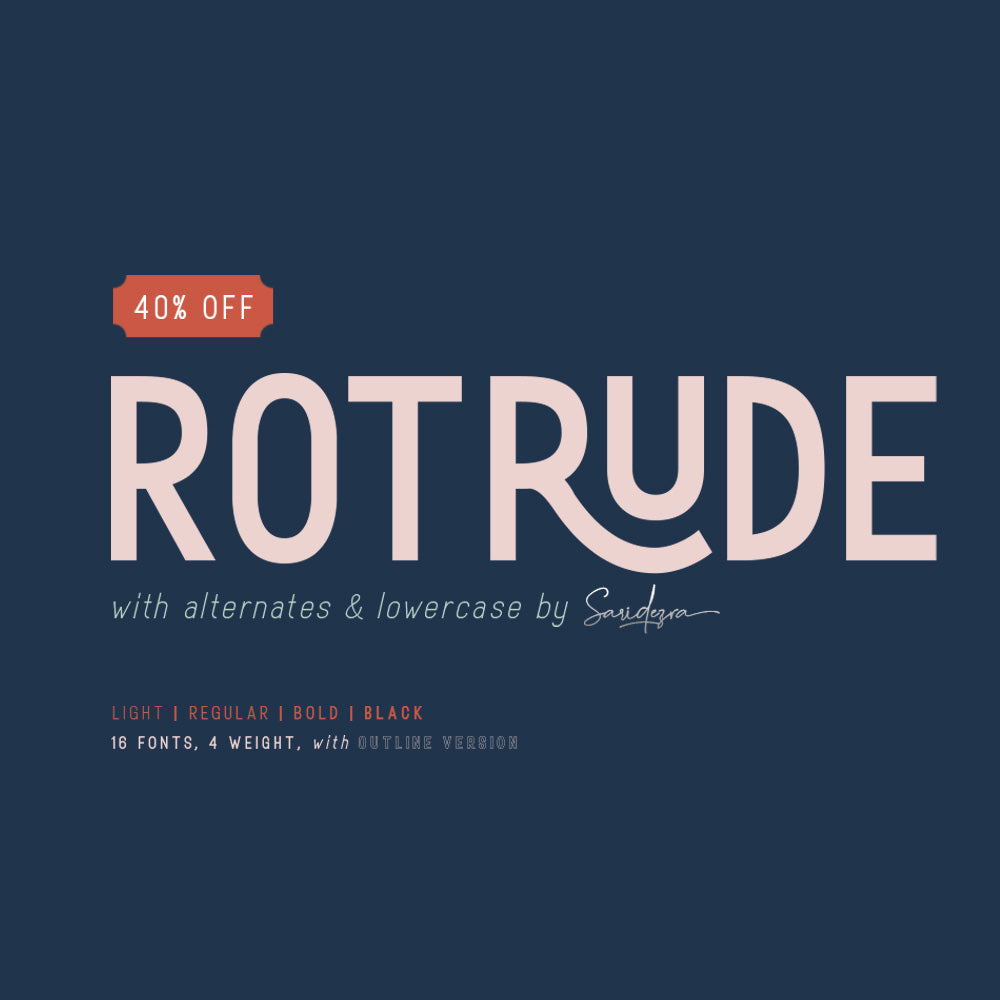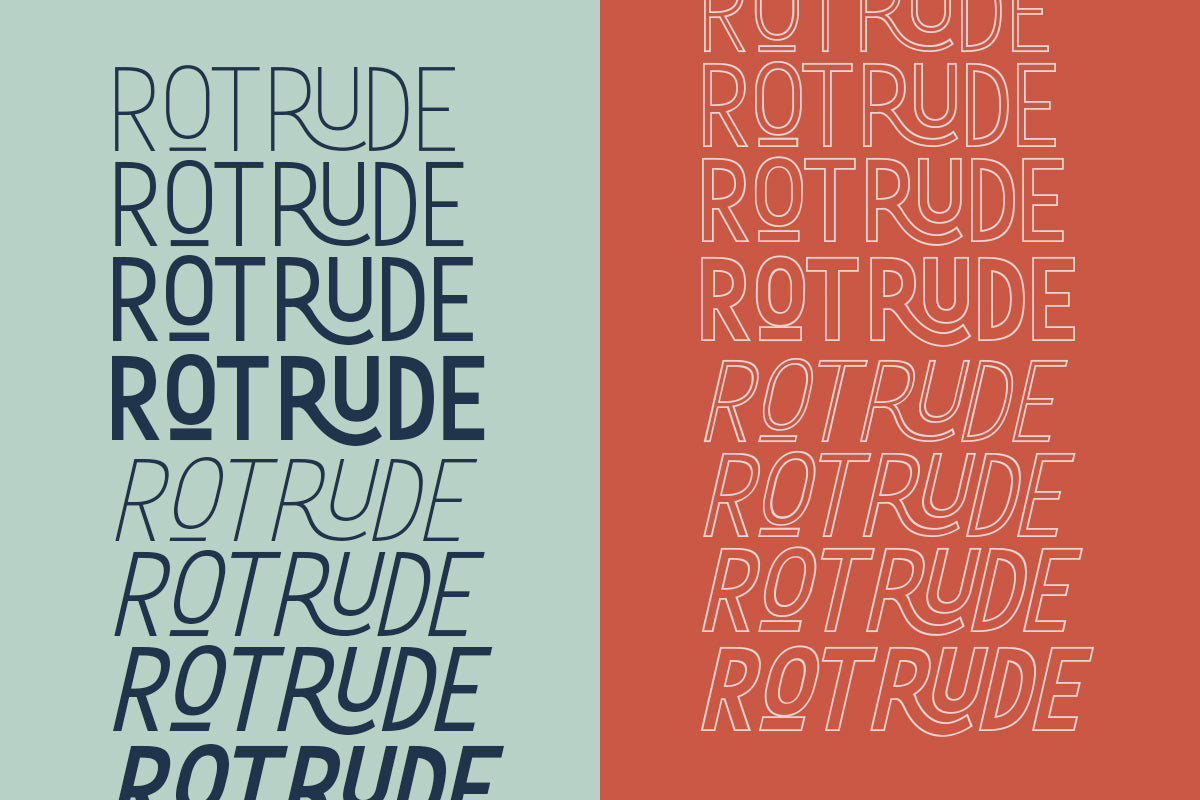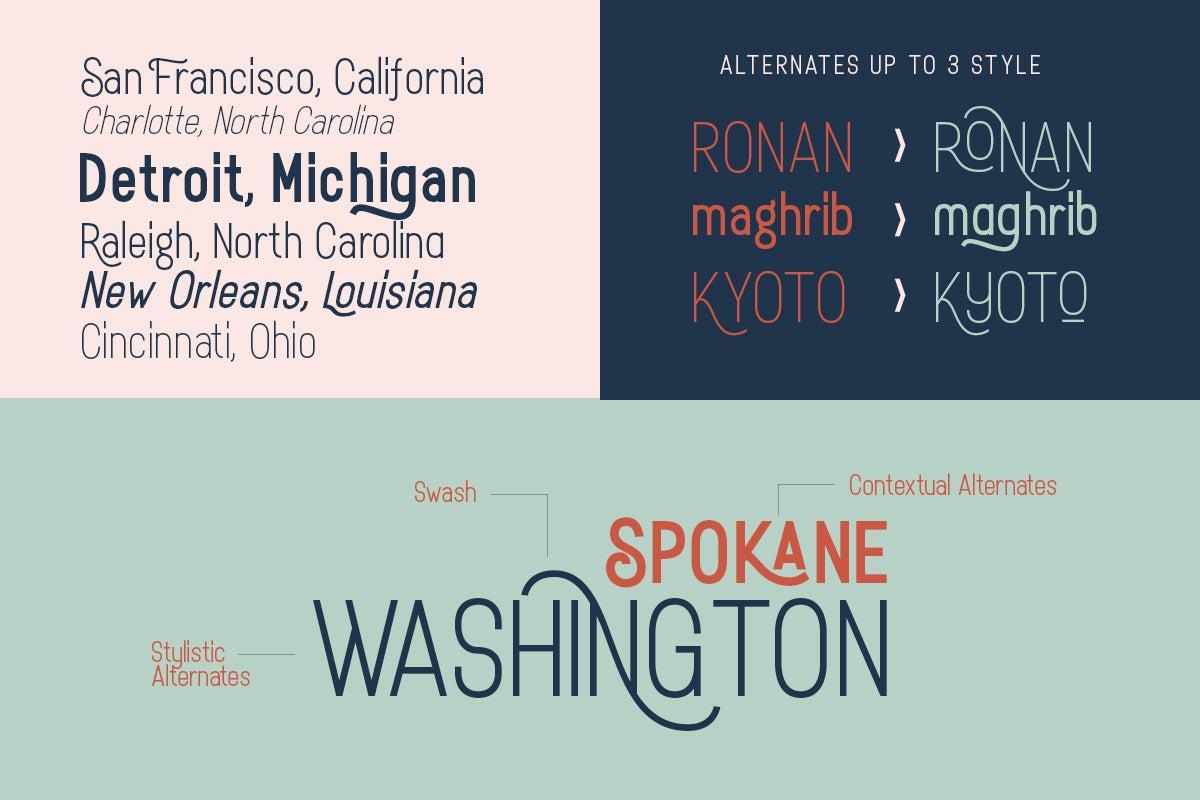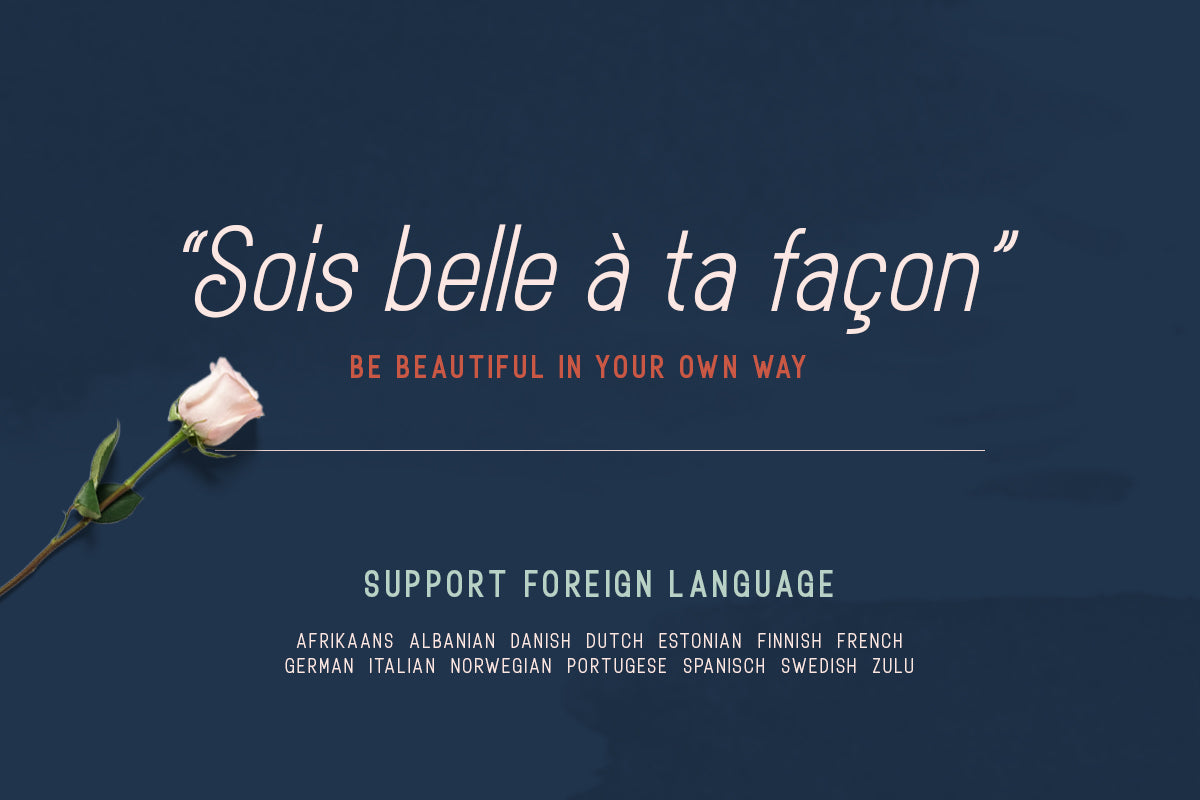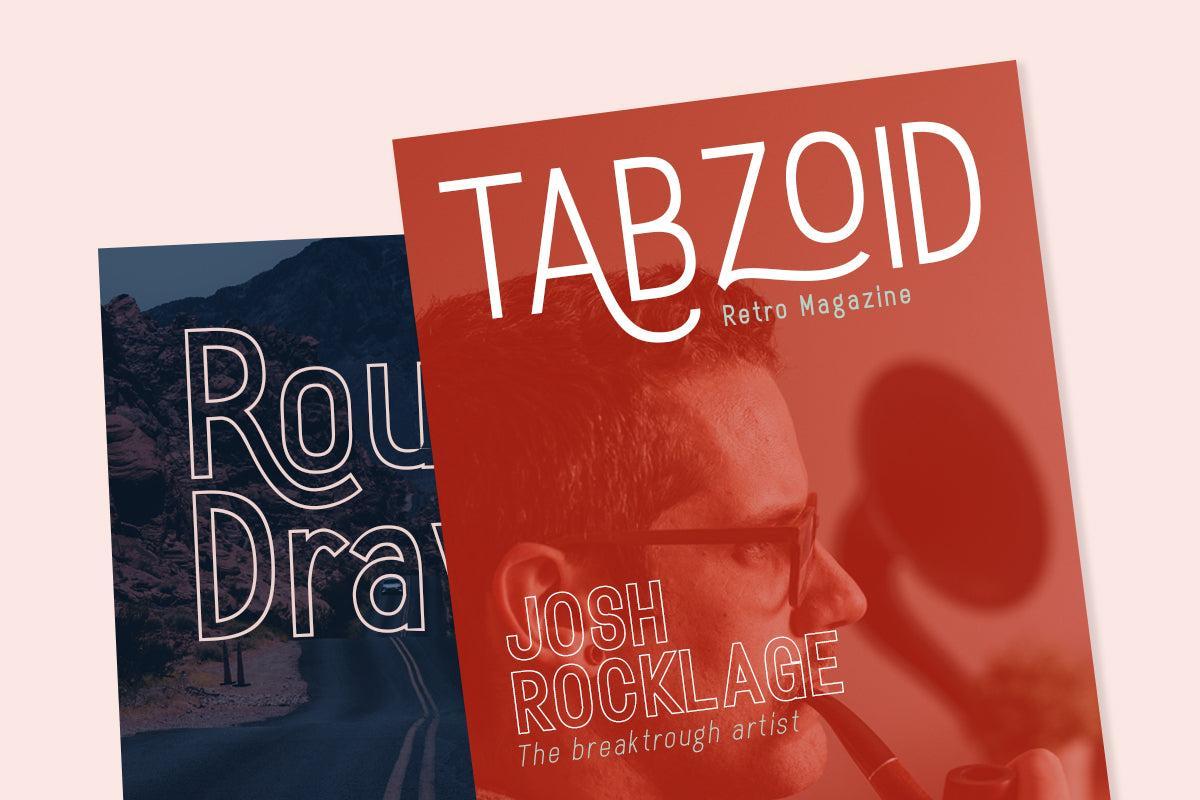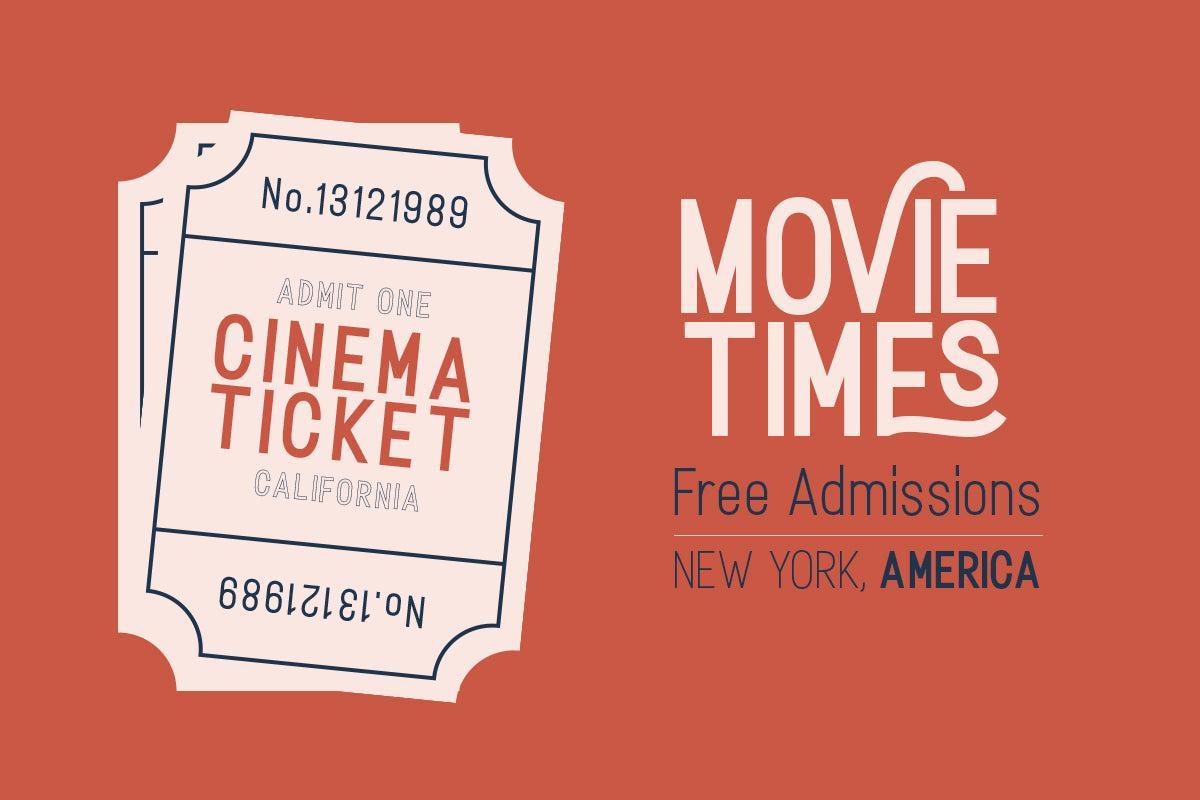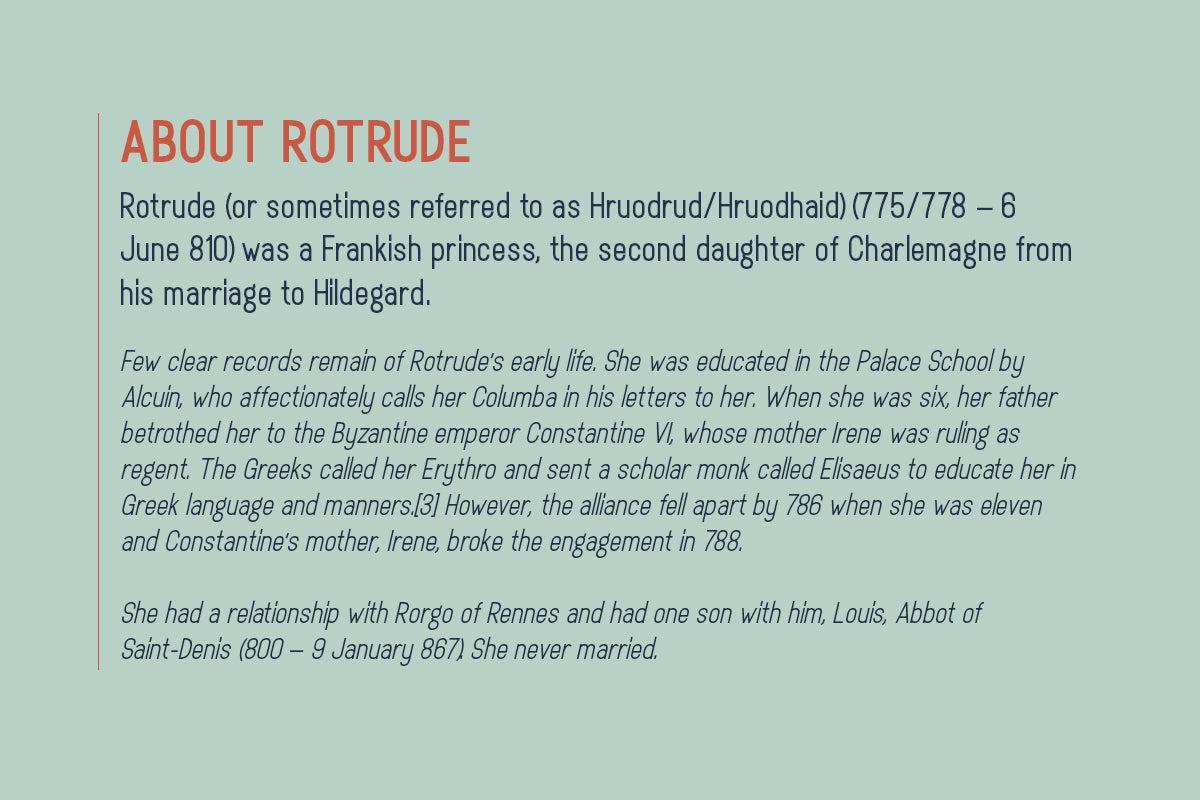
Rotrude Sans is a modern sans serif font family that includes 16 styles, featuring up to three alternate designs for each letter and support for multiple languages. This font offers both uppercase and lowercase options, making it versatile for various design needs.